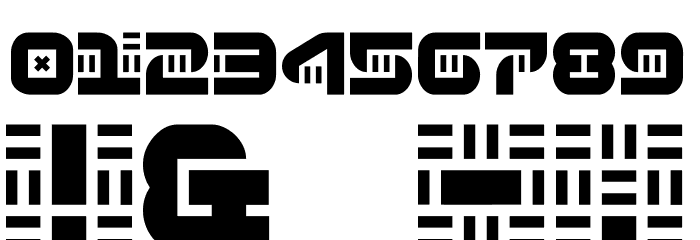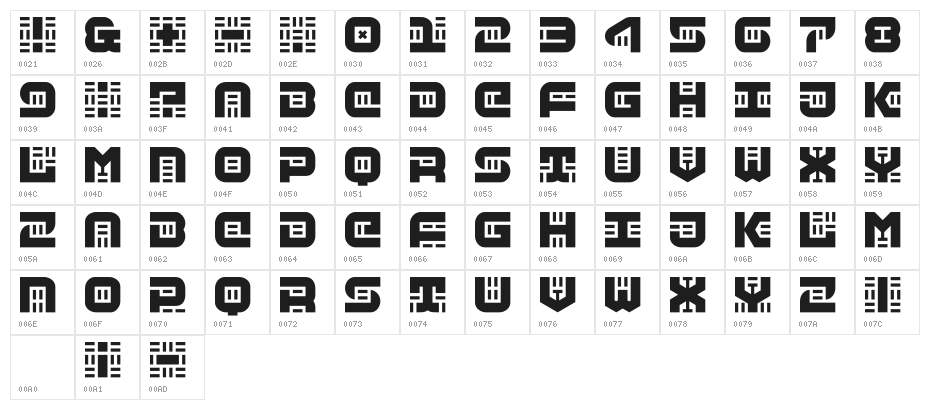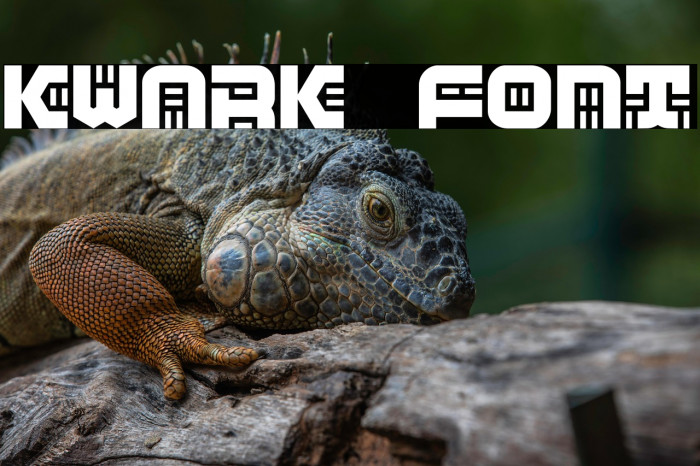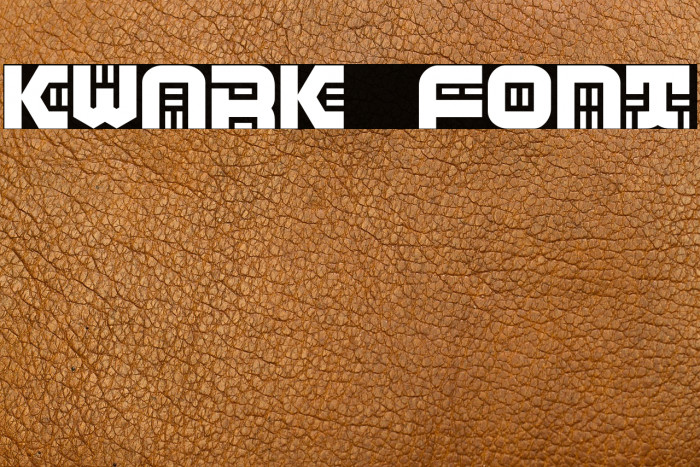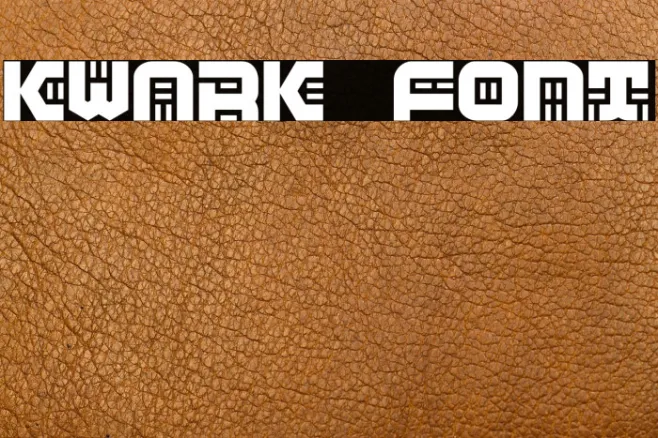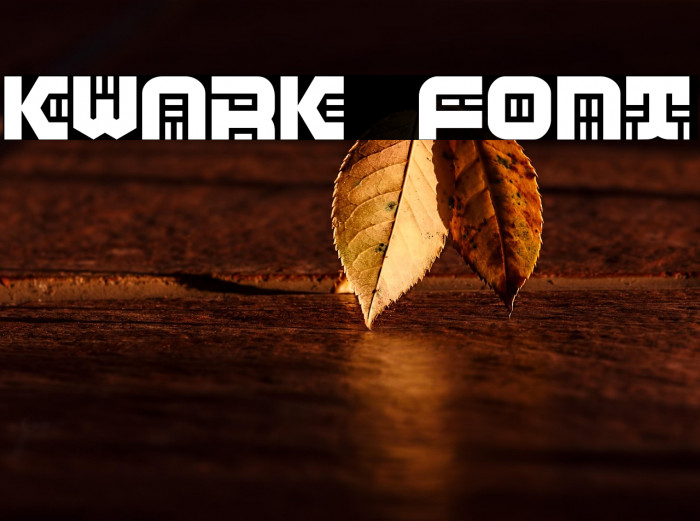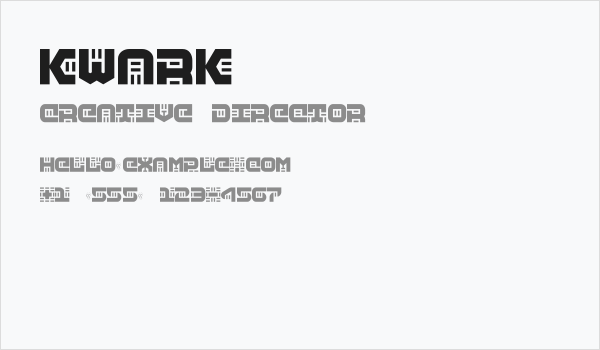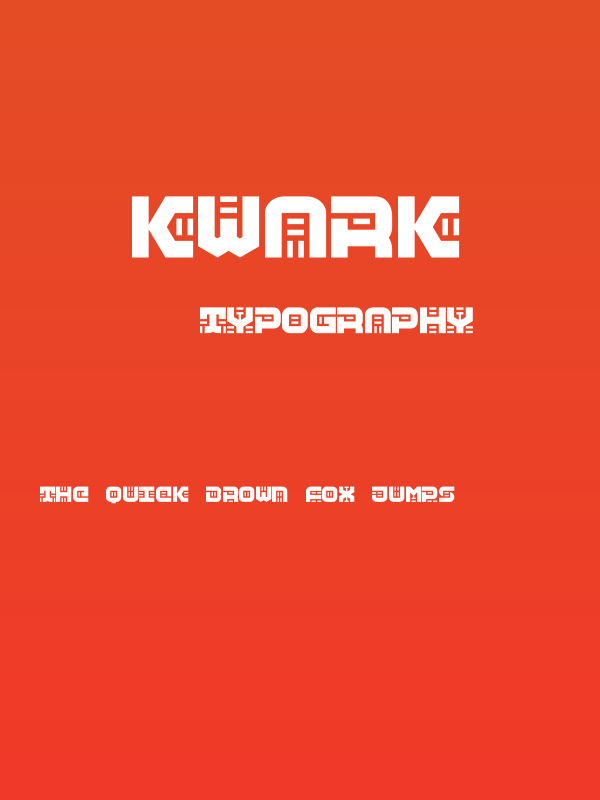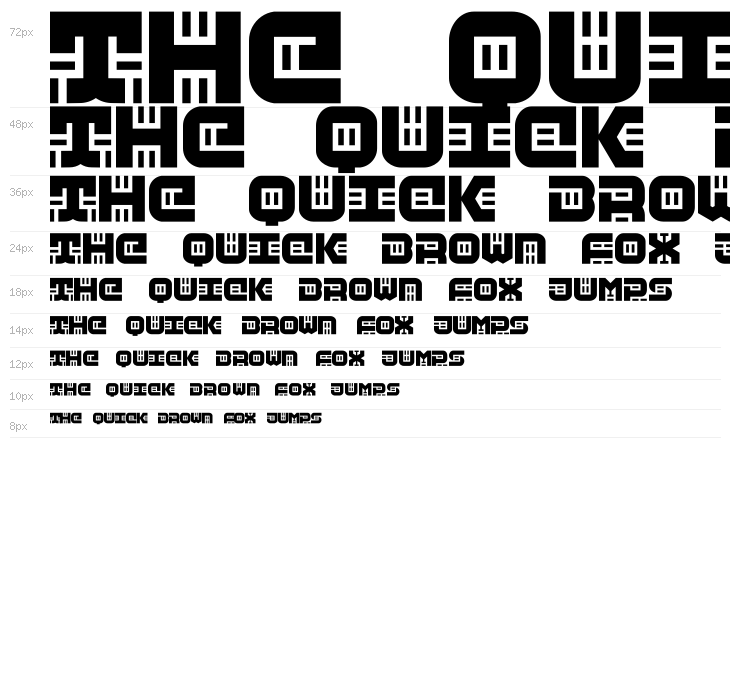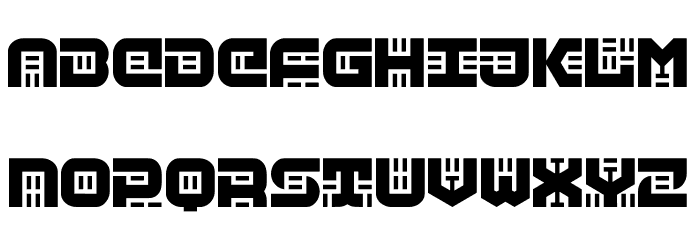
Kwark Font
Kwark Description
This font features a bold and futuristic design with geometric shapes and intricate patterns within each character. The letters are constructed with a combination of solid and hollow spaces, creating a unique visual effect. The uppercase and lowercase letters maintain a consistent style, while the numbers and special characters complement the overall aesthetic. The font's design is reminiscent of digital or sci-fi themes, making it suitable for projects that require a modern and technological feel.
Overall StyleFuturistic
Proposed ProjectsIdeal for sci-fi movie posters, video game titles, tech company logos, and futuristic-themed event invitations.